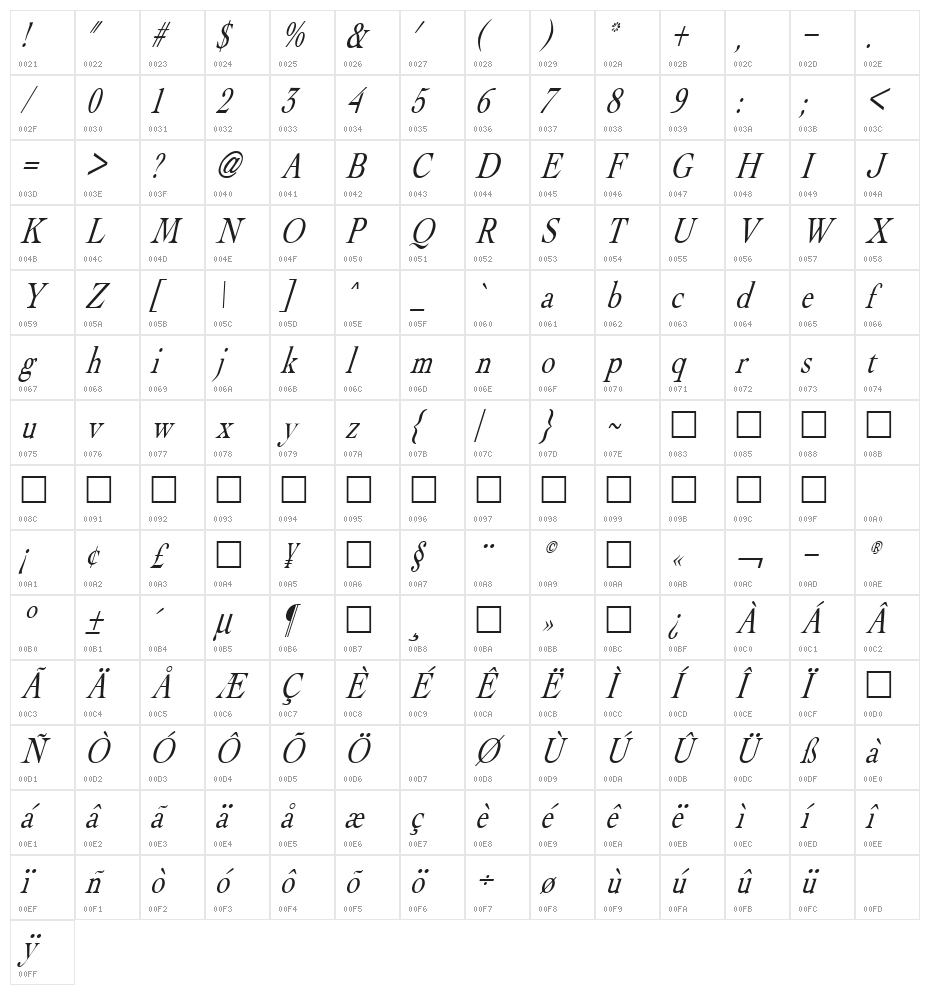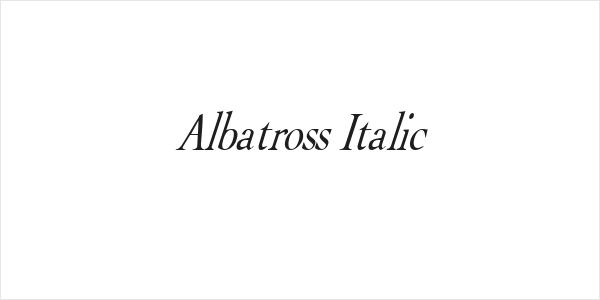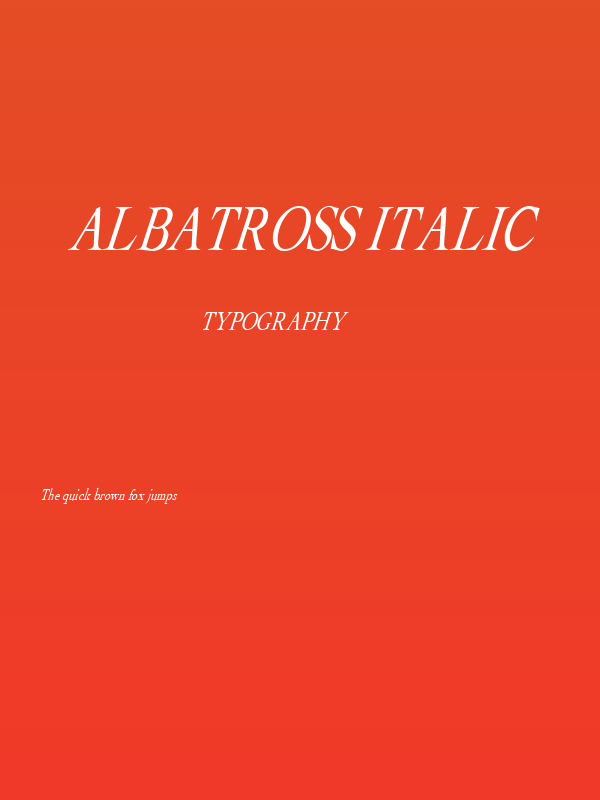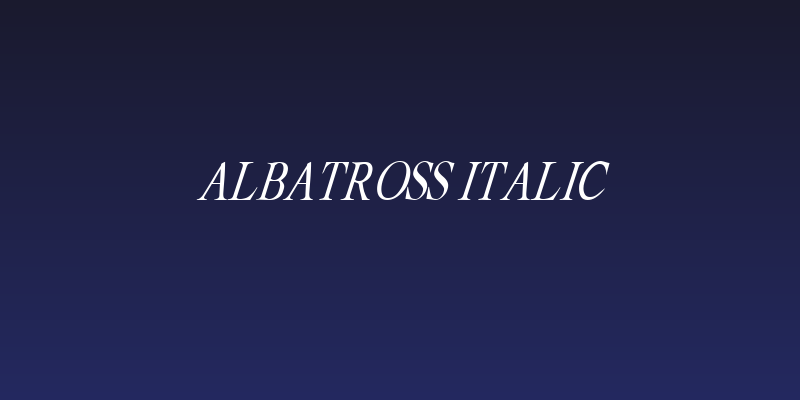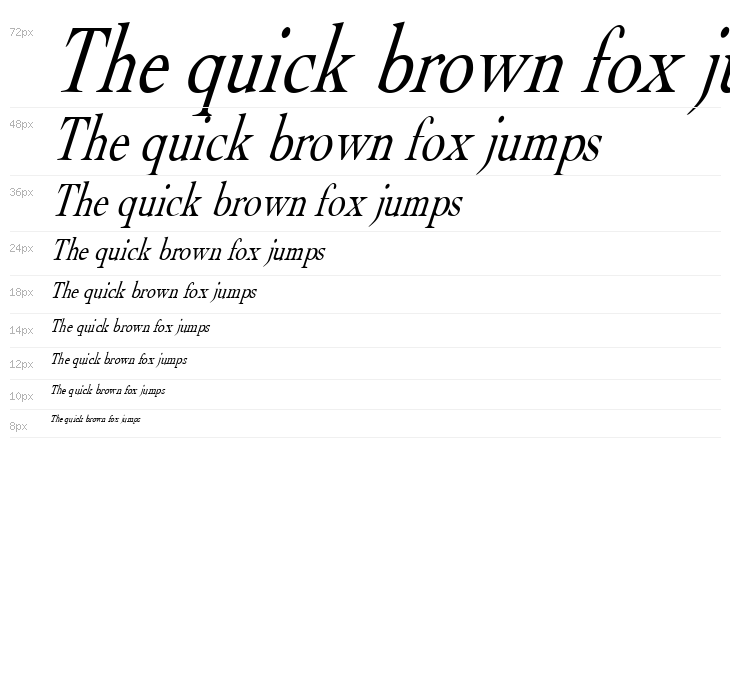
Albatross Italic Font
Albatross Italic Description
This elegant serif font features a classic italic style, characterized by its graceful, slanted letters and refined serifs. The strokes are moderately thick, providing a balanced contrast that enhances readability while maintaining a sophisticated appearance. The uppercase letters exhibit a traditional formality, while the lowercase letters are slightly more playful with their flowing curves. The numerals are clear and distinct, making them suitable for both text and display purposes. Special characters are well-integrated, ensuring versatility across various applications.